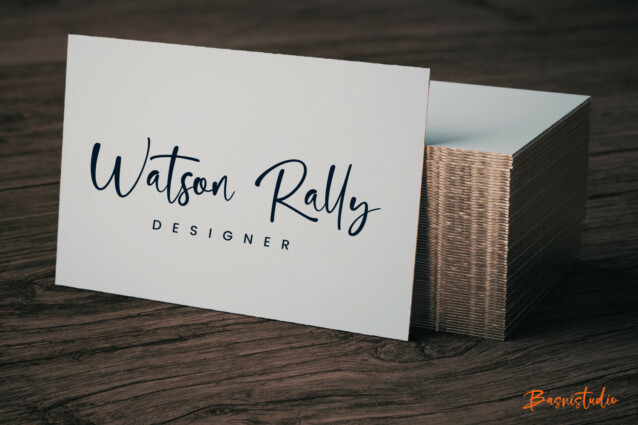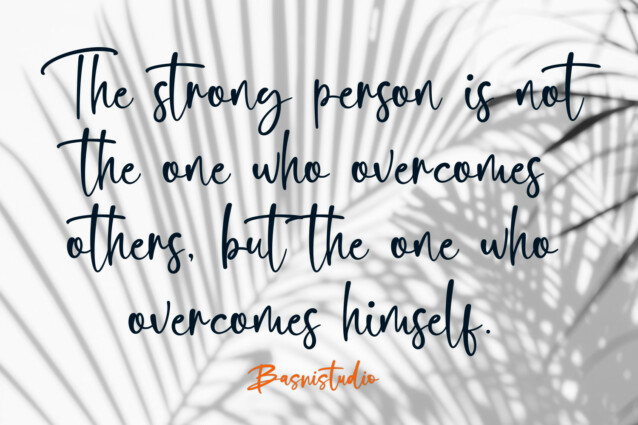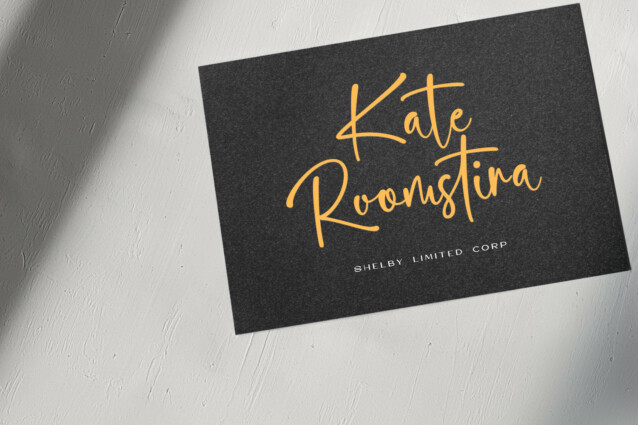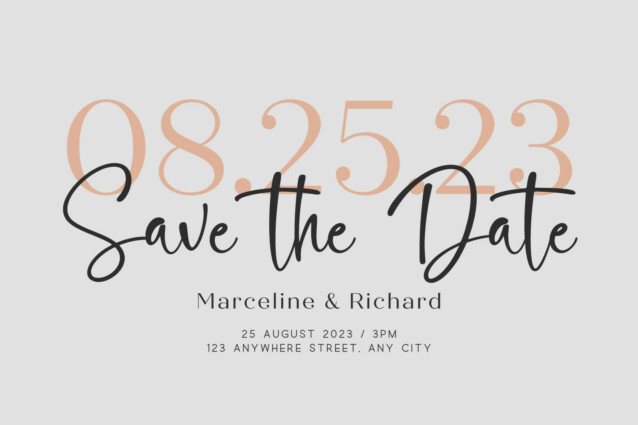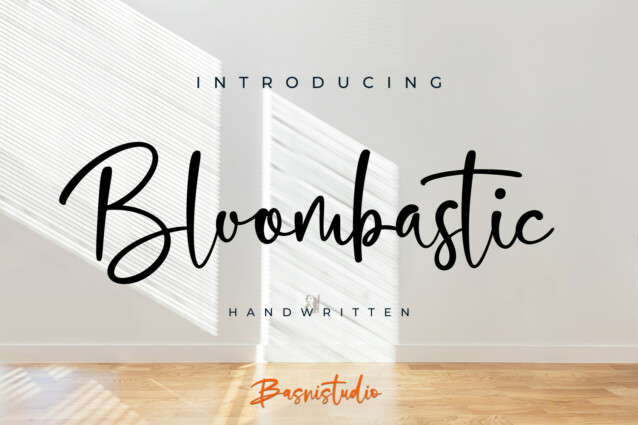
Bloombastic Font, made with Naturaly & precision, perfect for branding, websites, and editorial designs. Includes all Characters letters, multilingual support, punctuation, binding. everything can be easily accessed using software that supports OpenType.